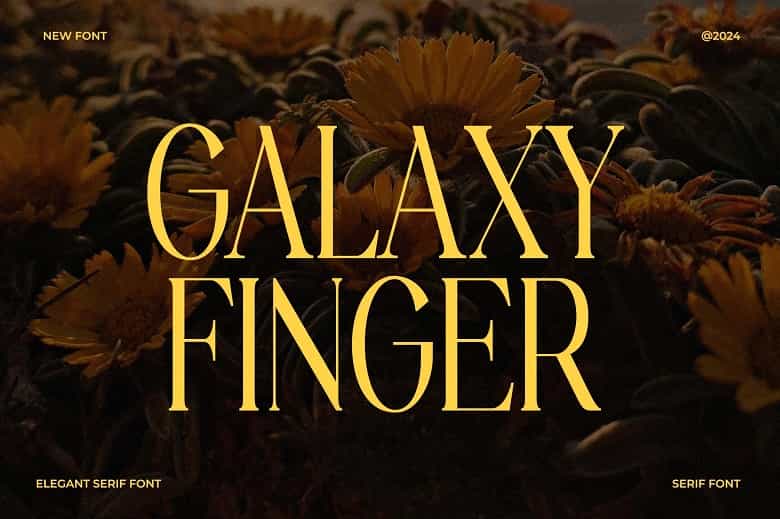
Galaxy Finger is a new serif font which is designed to create a beautiful, classy and sophisticated look but at the same time has a modern feel to it. This font is versatile and can be used in a number of projects such as signatures, letterheads, logos, wedding, quotes, and sayings, magazines, books, website headers, clothing, brands, packaging and many more.